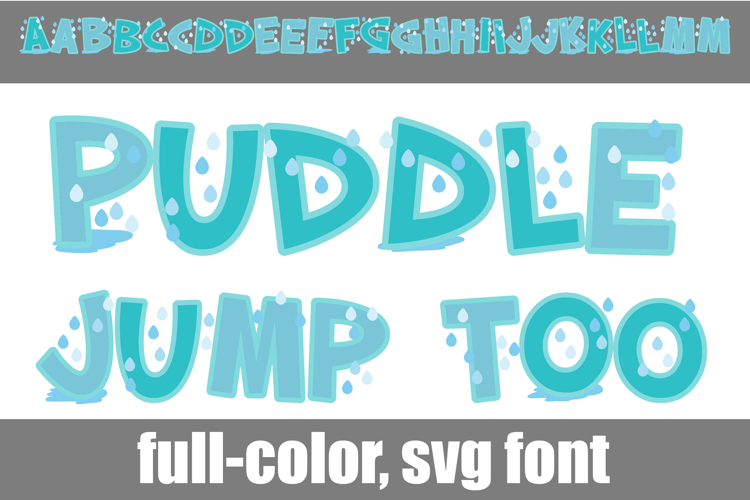
Puddle Jump Color Font
This full-color font features letters in the rain and puddles. There is an alt case of each letter with a different color combination.